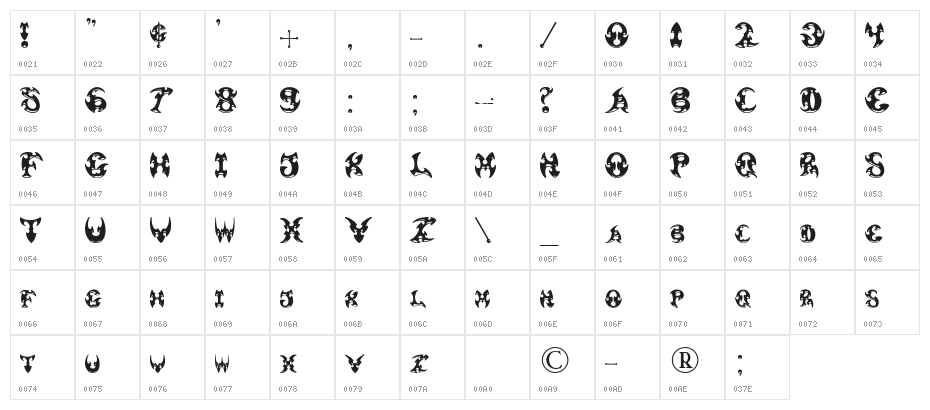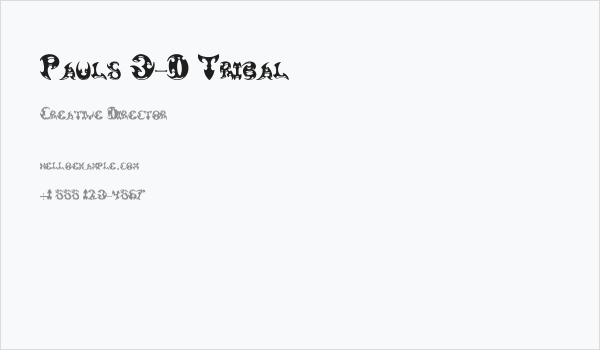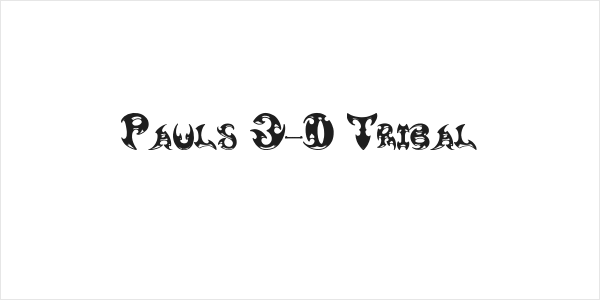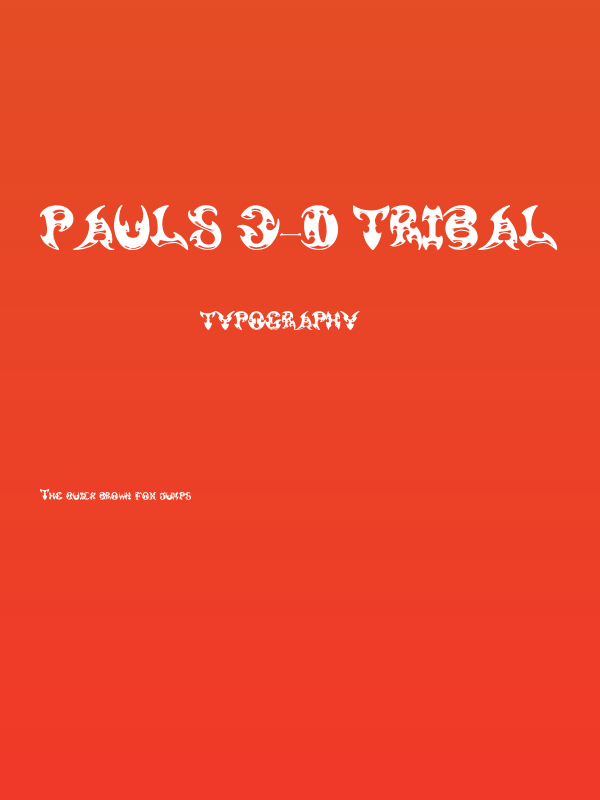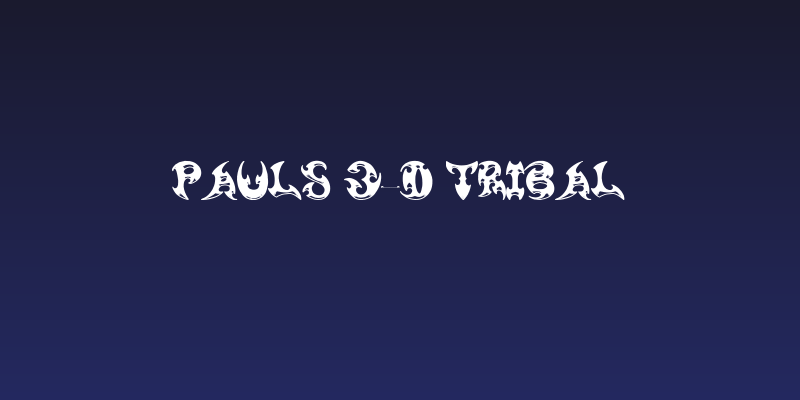
Pauls 3-D Tribal Font
Pauls 3-D Tribal Description
This font features a bold and intricate design with tribal-inspired elements. Each character is adorned with sharp, swirling patterns that create a sense of movement and energy. The bold strokes and high contrast between the thick and thin lines give it a dramatic and eye-catching appearance. The characters are tightly spaced, enhancing the compact and cohesive look of the text. This font is ideal for making a strong visual impact and is suitable for projects that require a unique and artistic touch.
Proposed ProjectsIdeal for tattoo designs, album covers, posters, and branding that requires a bold and artistic flair.